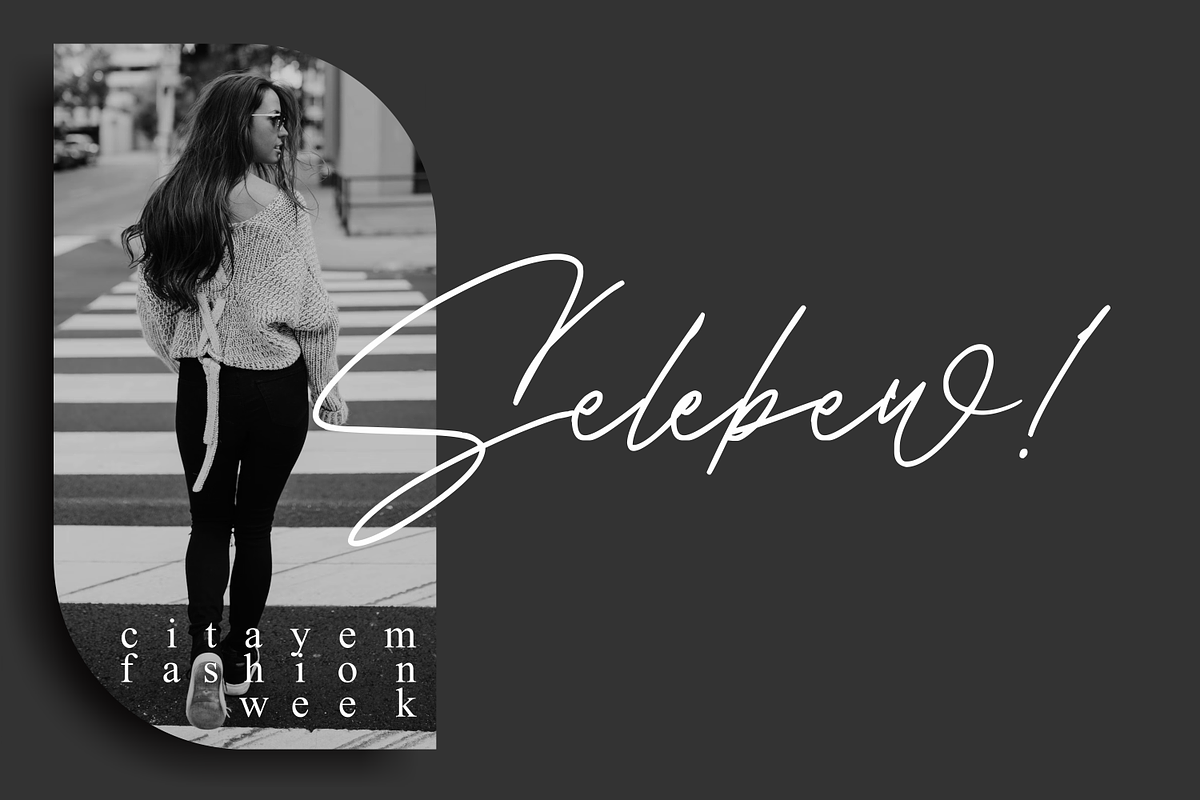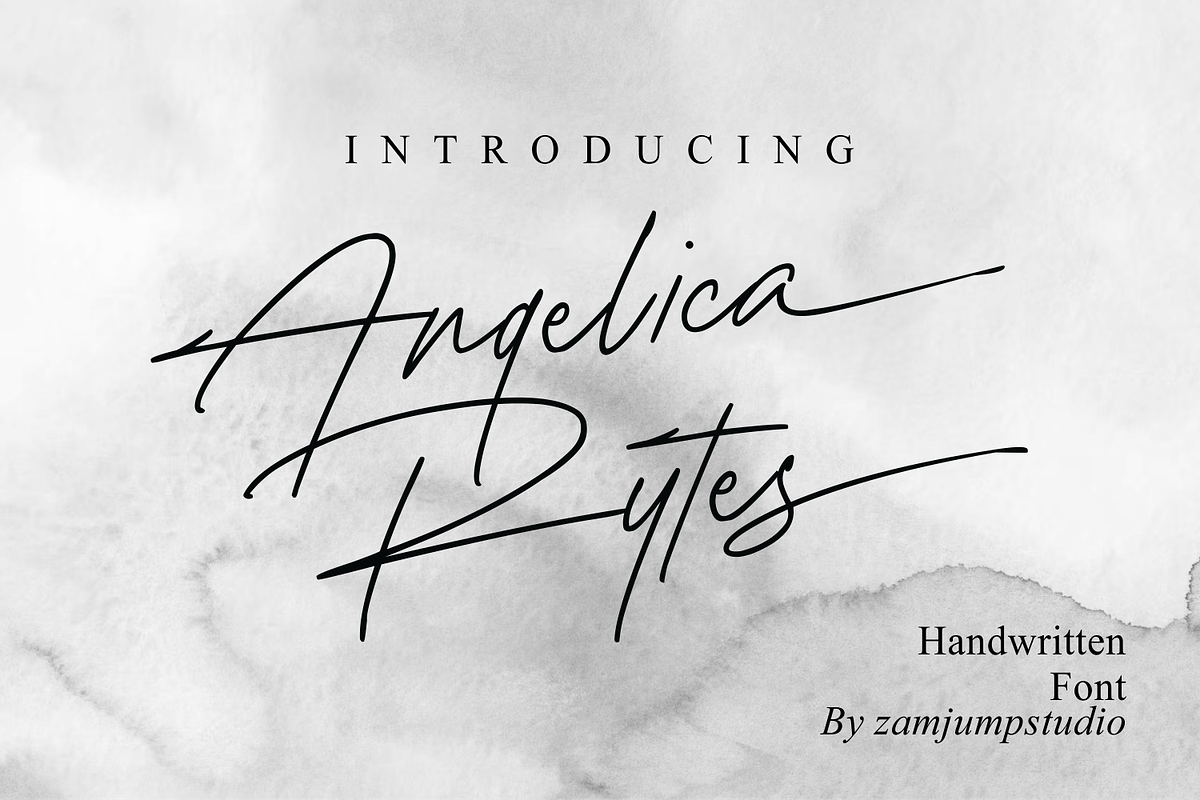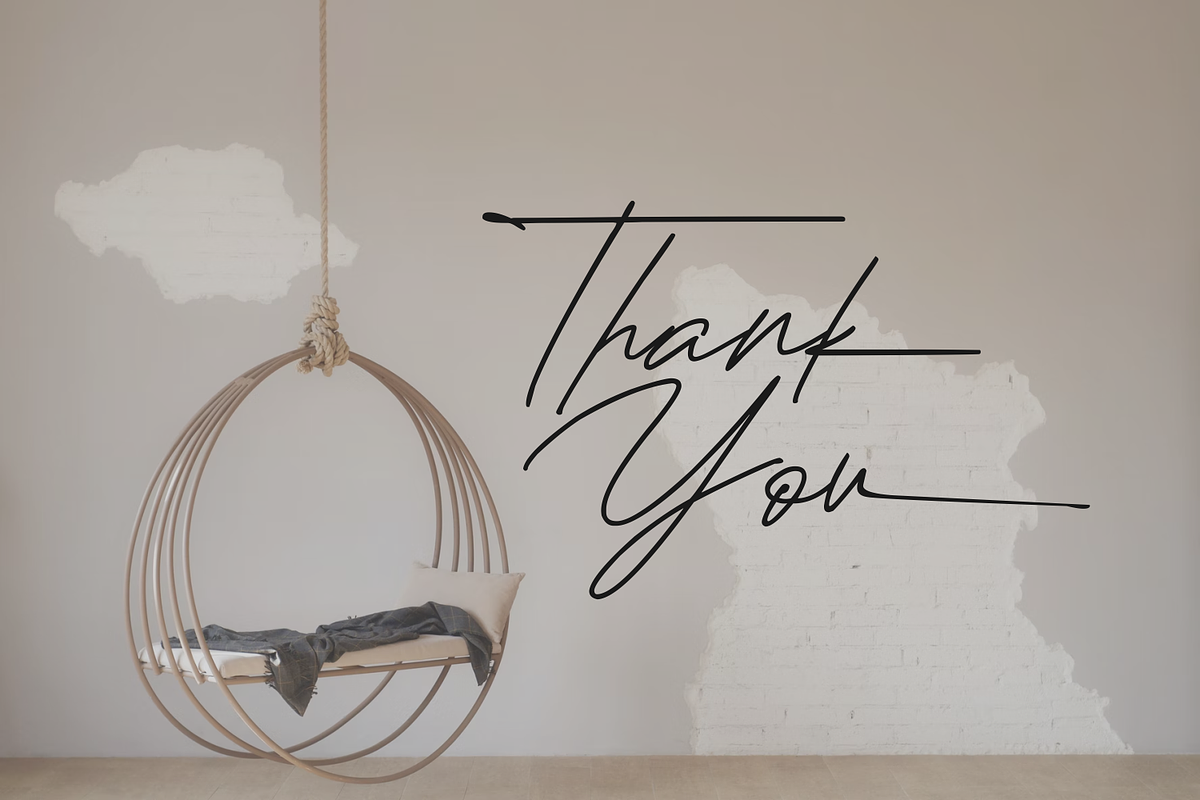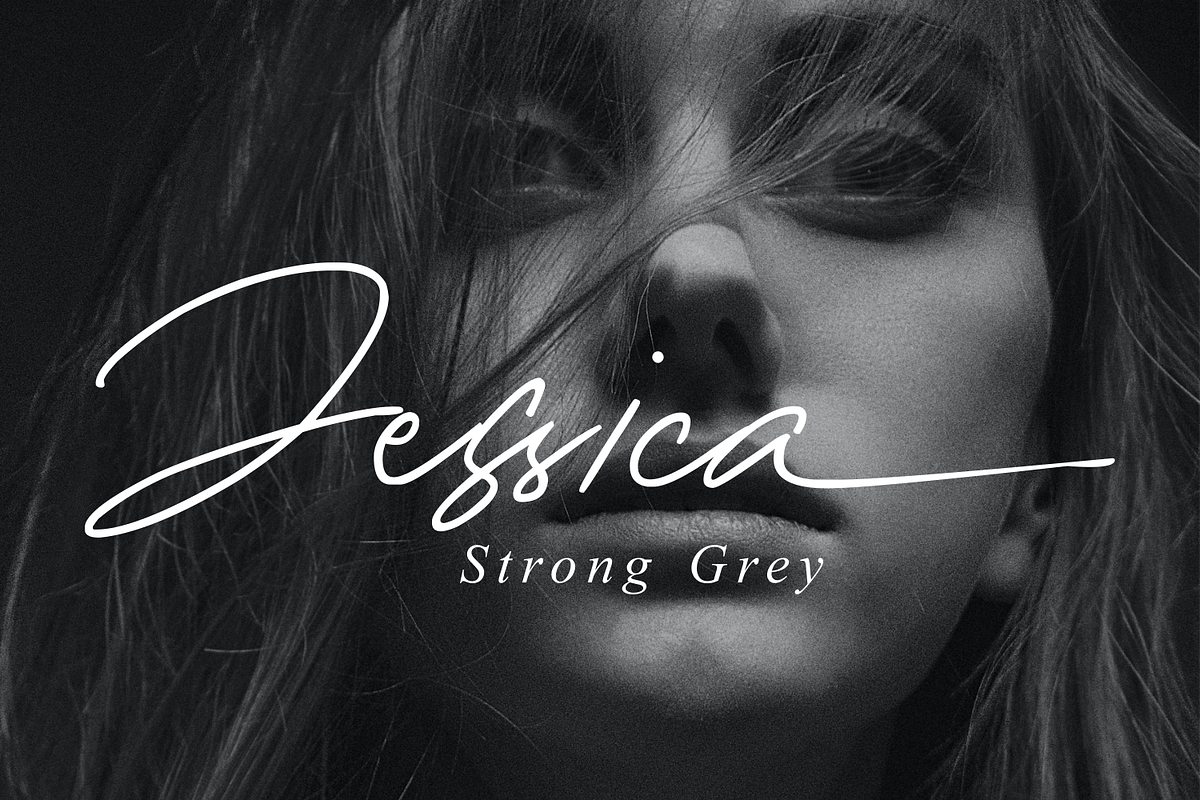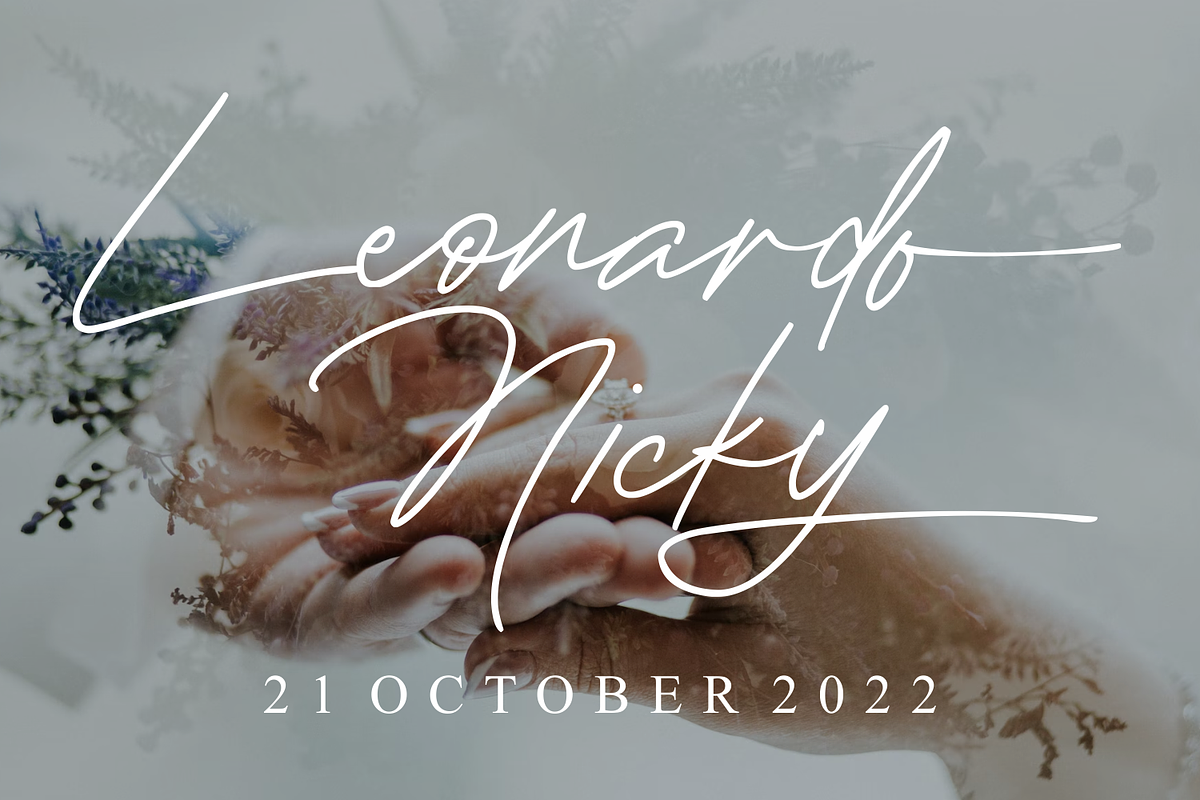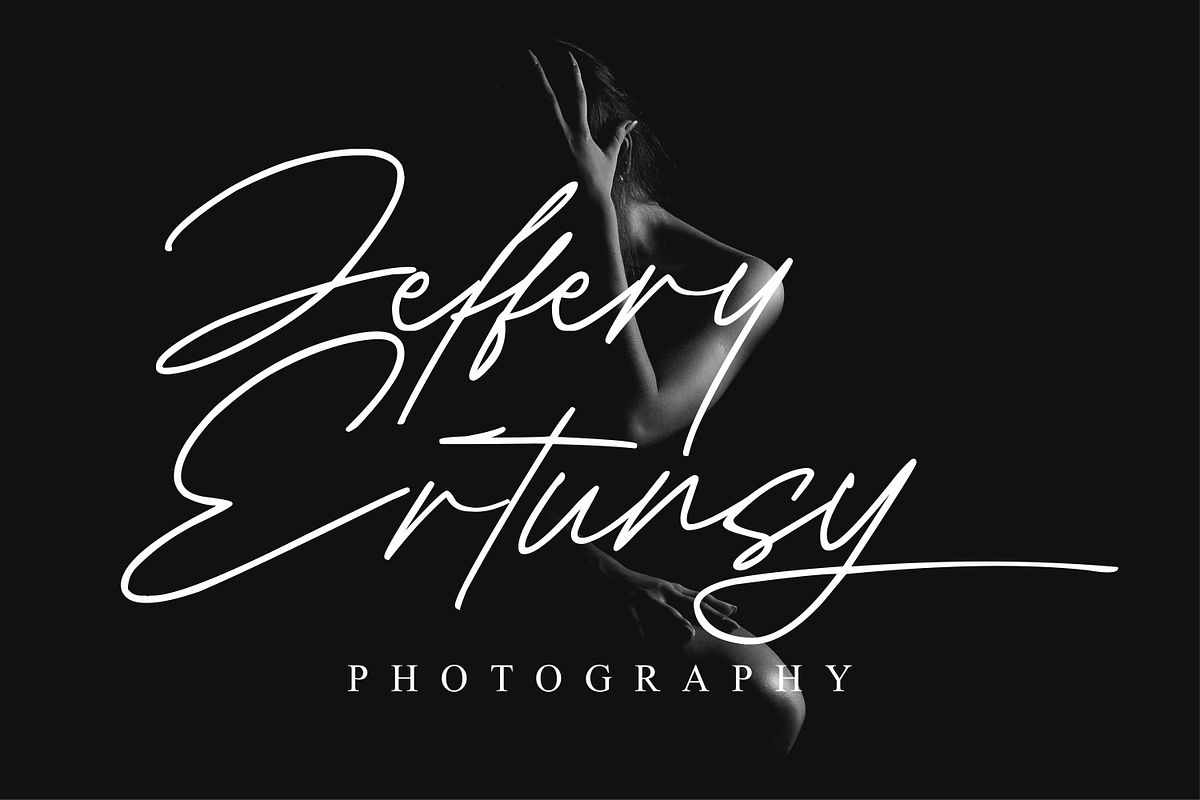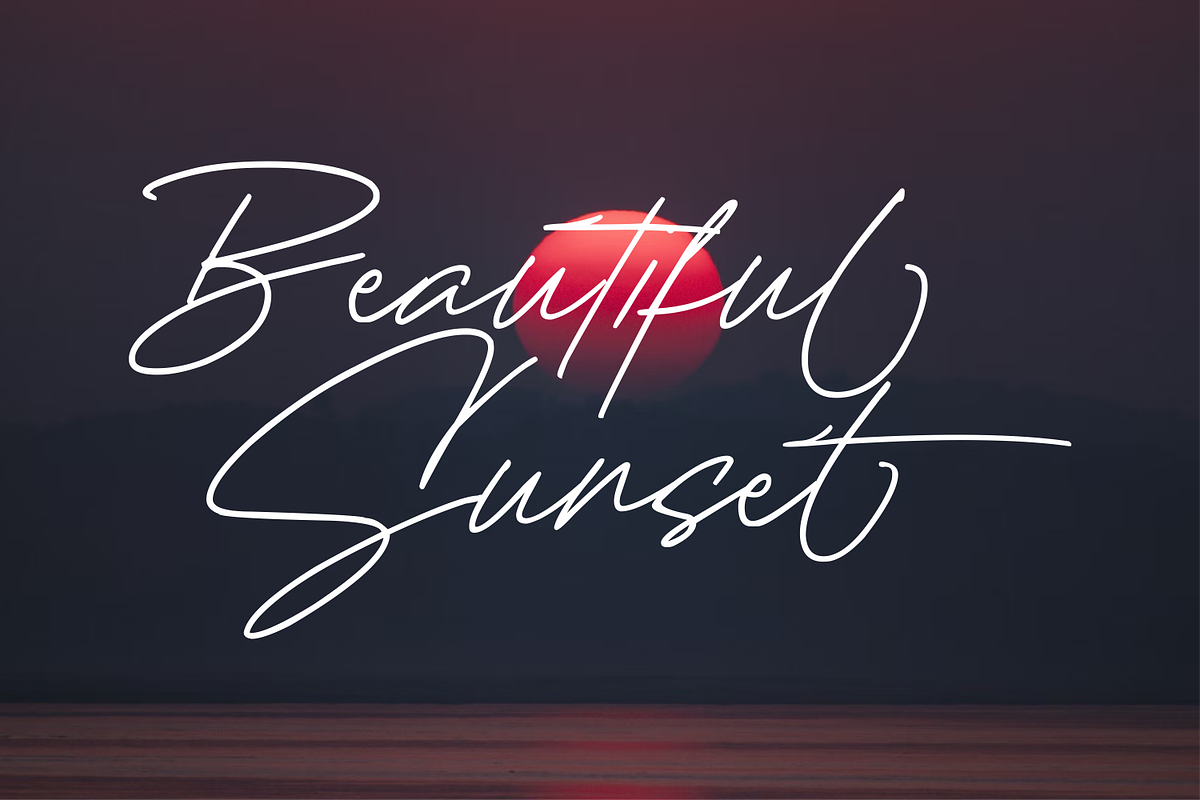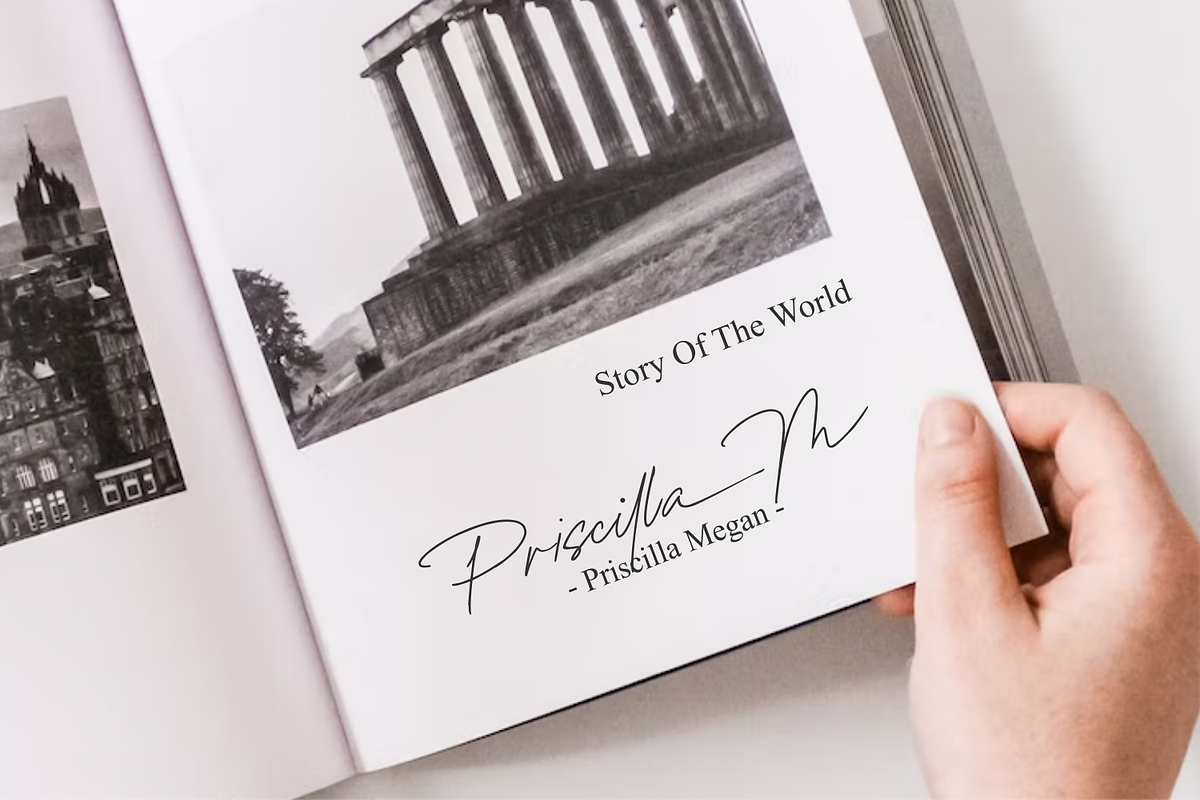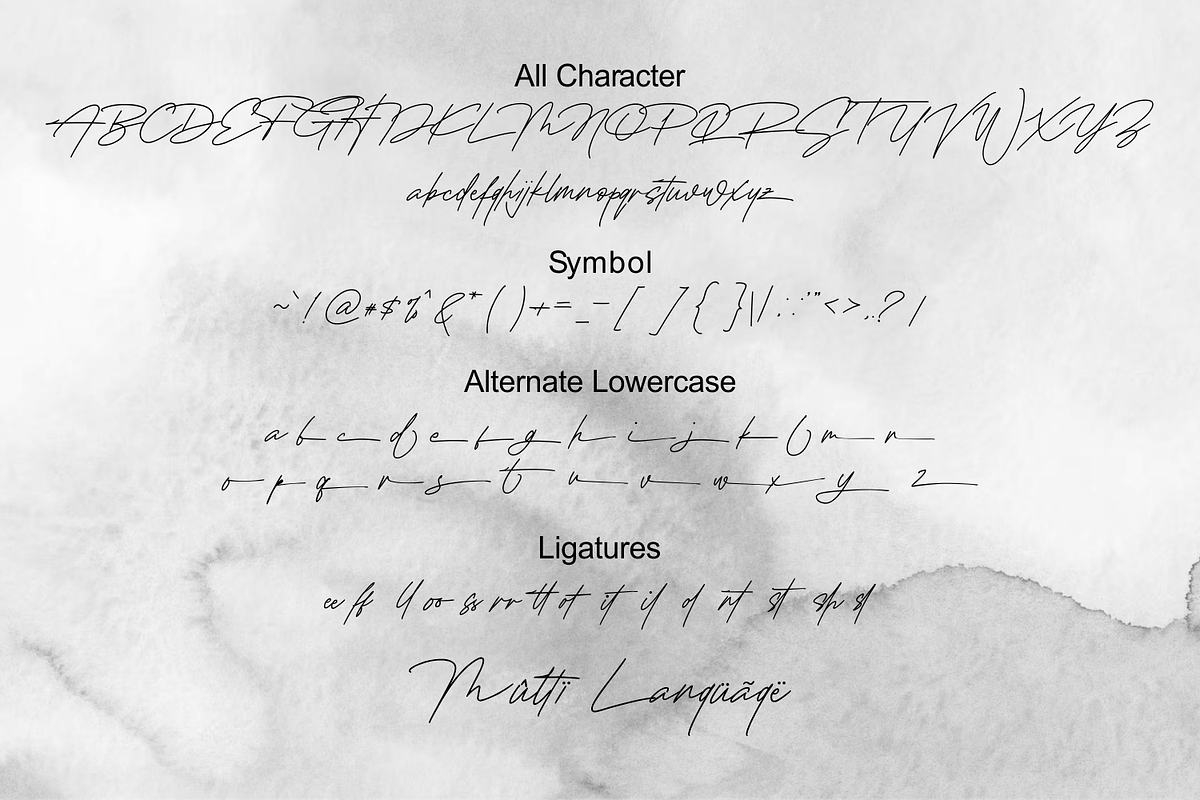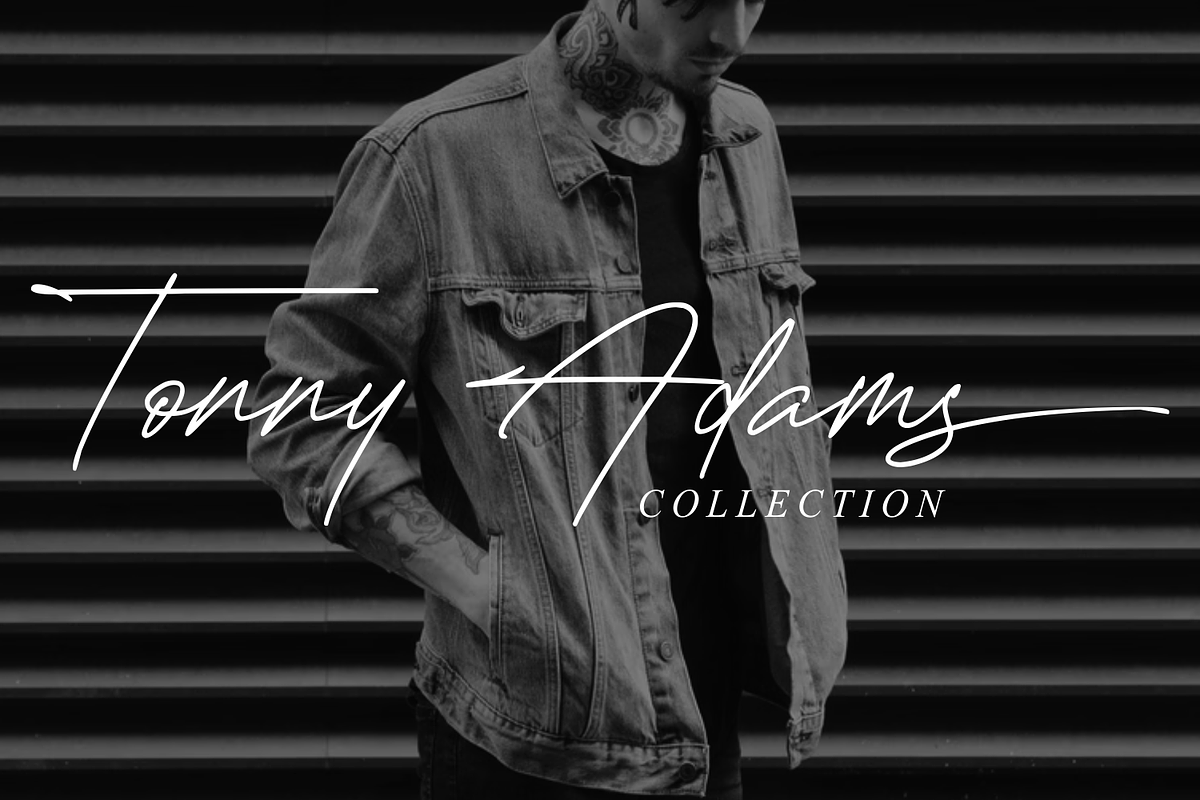
Angelica Rytes
Angelica Rytes is a handwritten font created with a romantic feel, it's perfect for creating signature logos and watermarks for photography studios or wedding invitations, quotes, fashion, and good for initial logo or brand signatures. Angelica Rytes includes a full set of beautiful handwritten upper and lower case letters, numbers, assorted punctuation marks and bindings. All lowercase letters include the final stroke, giving it a realistic handwriting style.